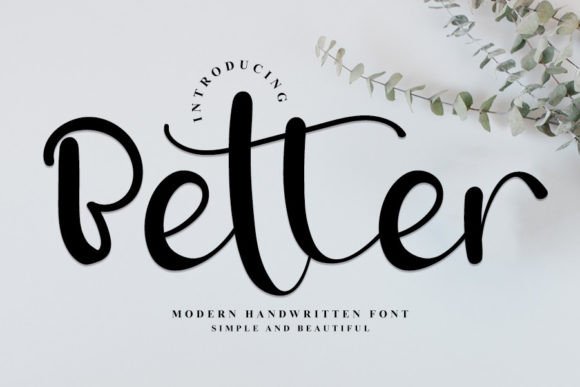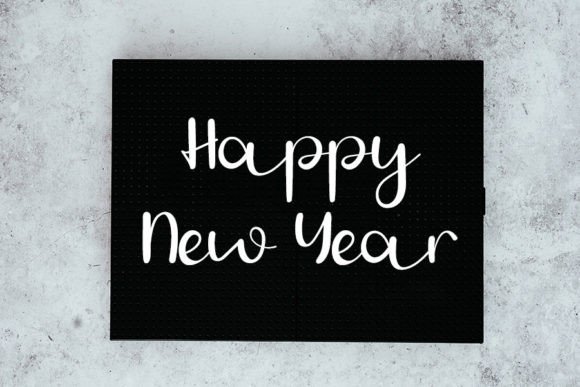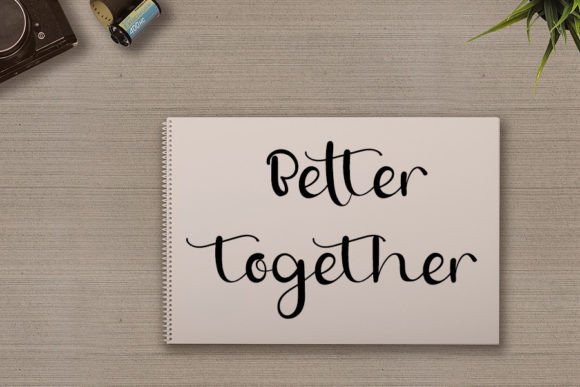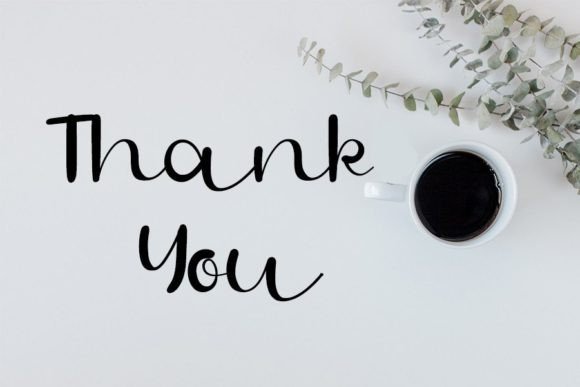
Better Font
About Better Font
Betterfont is a neat and beautiful handwritten typeface designed to add an elegant touch to your creative projects. Its distinct and timeless style makes it a versatile choice for designers who want to infuse personality and charm into their work.
Elegant Handwritten Style
Betterfont features clean lines and smooth strokes, reflecting a graceful and refined handwriting style. This elegance gives your projects a sophisticated look while maintaining a natural, approachable feel.
Timeless and Versatile
Thanks to its timeless design, Betterfont fits well across various applications. Whether you are designing wedding invitations, logos, branding materials, or social media graphics, this font helps your work stand out with style and grace.
Perfect for Your Favorite Projects
Betterfont adapts easily to many design needs. Its legibility and unique character make it ideal for use in stationery, greeting cards, packaging, posters, and much more. This versatility makes it a dependable addition to any font collection.
Why Choose Better Font?
Choosing Better font means opting for a balance of elegance and readability. It enhances your designs with a touch, making your creative work feel both personal and professional.
Make Your Designs Spectacular
With Better font, you can create visuals that leave a lasting impression. Use it to elevate your projects and bring a refined, stylish flair that captures attention and expresses your creative vision.